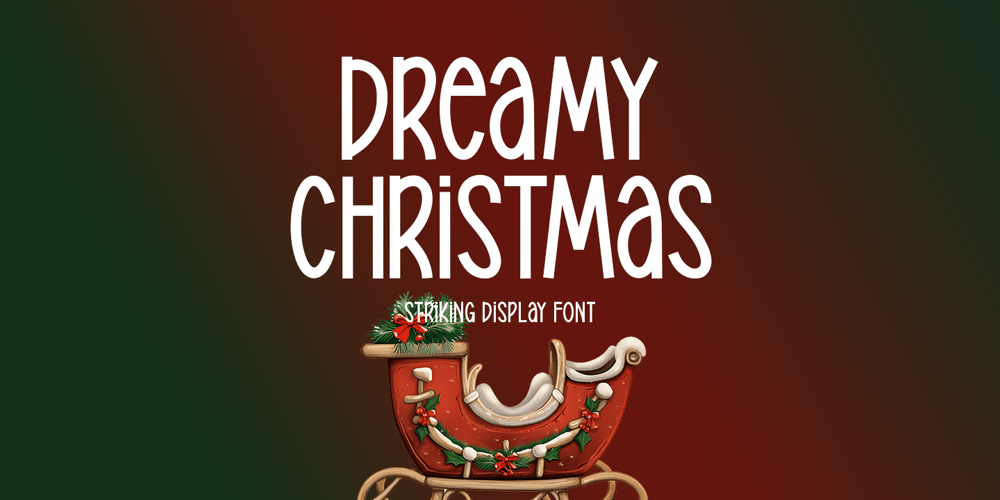
Dreamy Christmas Font Family was designed by Md Shohail Bhuian and published by Seemly Fonts. Dreamy Christmas contains 1 styles and family package options. The lovely display font Dreamy Christmas exudes coziness, happiness, and the charming allure of the holiday season. Whether you’re creating digital content, print materials, logos, t-shirts, or holiday cards, its sophisticated yet playful nature makes it perfect for a wide range of creative uses. This adaptable typeface also looks well in flyers, posters, music covers, picture sliders, and website headers, giving any project a whimsical touch. Its flowing, sophisticated style is ideal for encapsulating the holiday spirit and producing designs that are hospitable and brimming with joy.